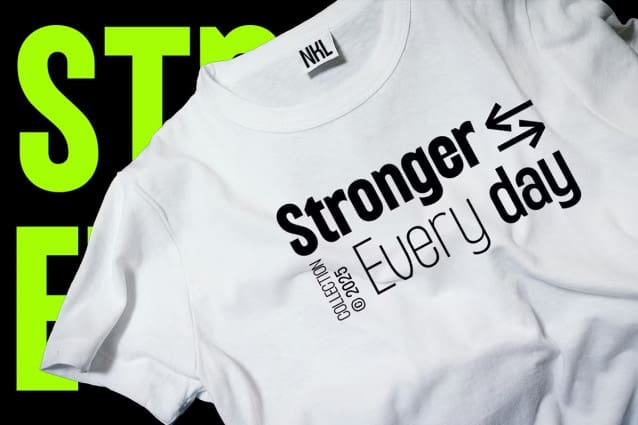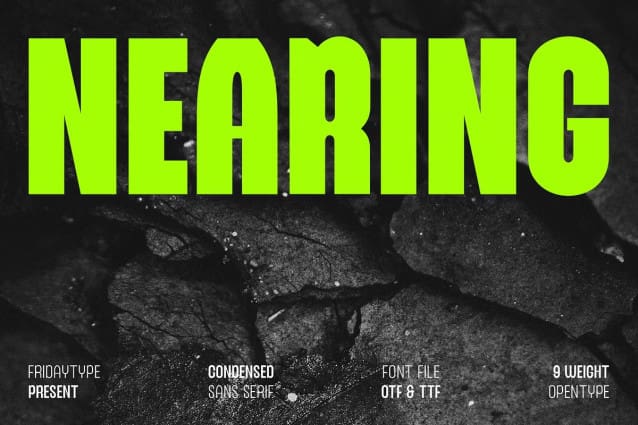
Nearing Font
Nearing Font – Condensed Sans brings a bold and dynamic aesthetic to your portable workout equipment packaging. Its sleek design not only catches the eye but also communicates high performance and quality. Nearing comes with 9 weights. All these features make the font a great choice for graphic designers and art directors for logos, wordmarks, short text, etc.